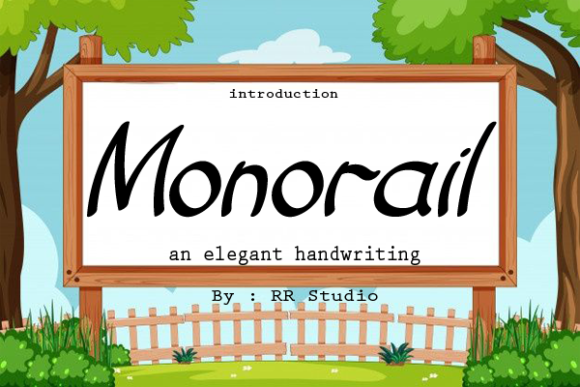
Monorail Font
About Monorail Font
Monorail is a stylish and simple handwritten font. It looks stunning on wedding invitations, thank you cards, quotes, greeting cards, logos, business cards and every other design which needs a customized touch.